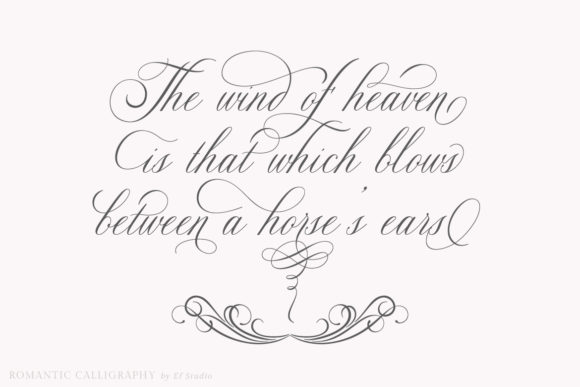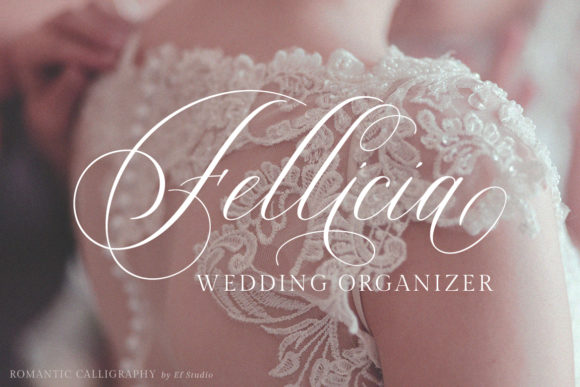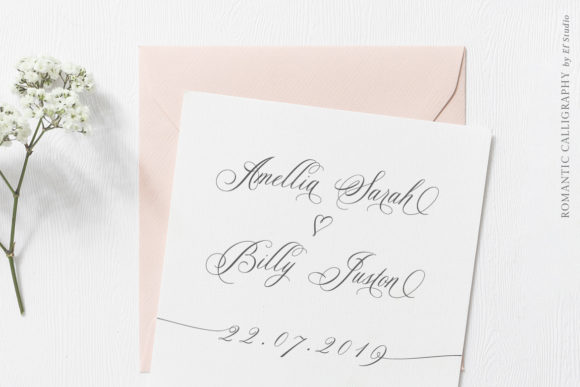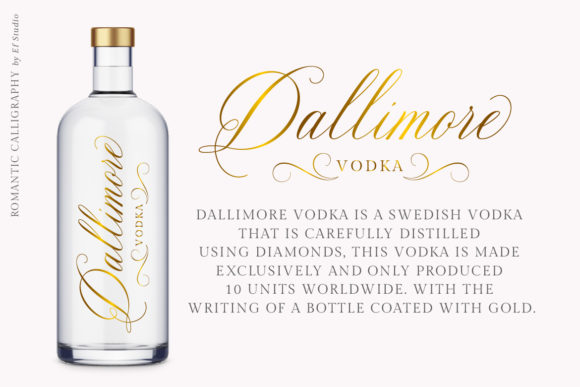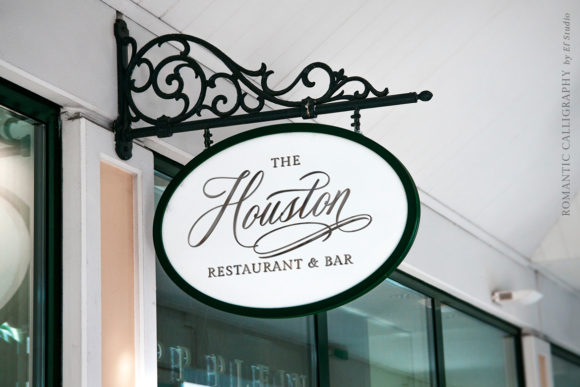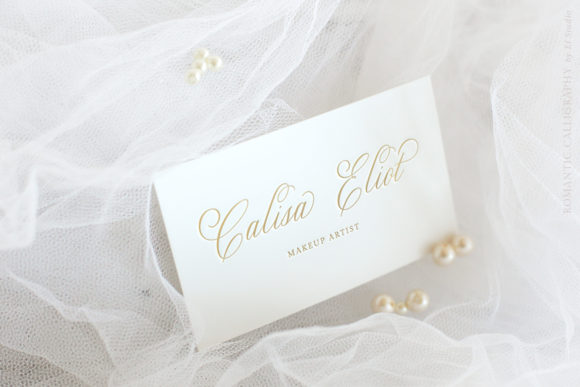
The Glaston Font: A Romantic Standout for Your Design Projects
I still remember the frustration of working on a project, pouring my heart and soul into it, only to feel like something was missing. The design was beautiful, but it just didn’t have that special something that would make it stand out. And then it hit me – the font. I was using a generic, run-of-the-mill typeface that didn’t capture the essence of my design. That’s when I discovered the Glaston font, and let me tell you, it was love at first sight! 💕
Glaston is an incredibly romantic typeface with bold swashes that will turn any design project into a true standout! Its elegant and sophisticated feel makes it perfect for designers, crafters, and creative hobbyists looking to add a touch of luxury to their work.
An Honest Review of Glaston Font
What I Love About Glaston Font
- ✨ Elegant and sophisticated feel with bold swashes
- ✅ Perfect for romantic and luxurious designs
- 🎉 Highly versatile and can be used for various design projects
- 💬 Excellent for headlines, titles, and short text
While Glaston font is an amazing typeface, there are a few things to keep in mind:
- ⚠️ May not be suitable for body text or long paragraphs due to its bold and decorative nature
- 🤔 Limited availability of certain characters or glyphs, but this can be overcome with OpenType features
The Backstory of Glaston Font
Glaston font was designed with love and care by a talented type designer who wanted to create a typeface that would evoke emotions and add a touch of luxury to designs. The font’s elegant and sophisticated feel makes it perfect for romantic and high-end designs. While the designer’s story is shrouded in mystery, their passion and dedication to creating a beautiful typeface are evident in every detail of Glaston font.
| Author | Ef Studio |
Q: What is the best way to use Glaston font?
A: Glaston font is best used for headlines, titles, and short text. Its bold and decorative nature makes it perfect for adding a touch of luxury to designs.
Q: Is Glaston font available in different languages?
A: Glaston font may not have full language support, but it does include a range of characters and glyphs that can be used for various languages.